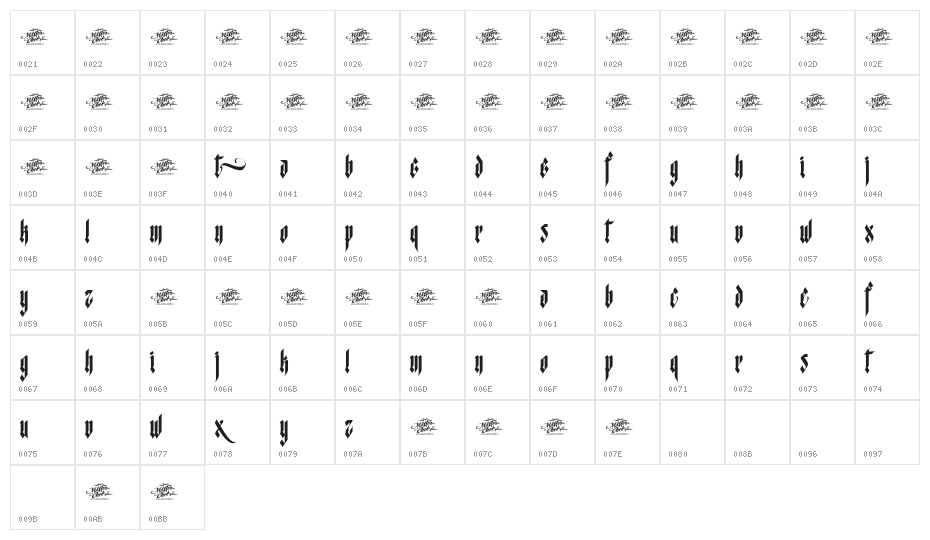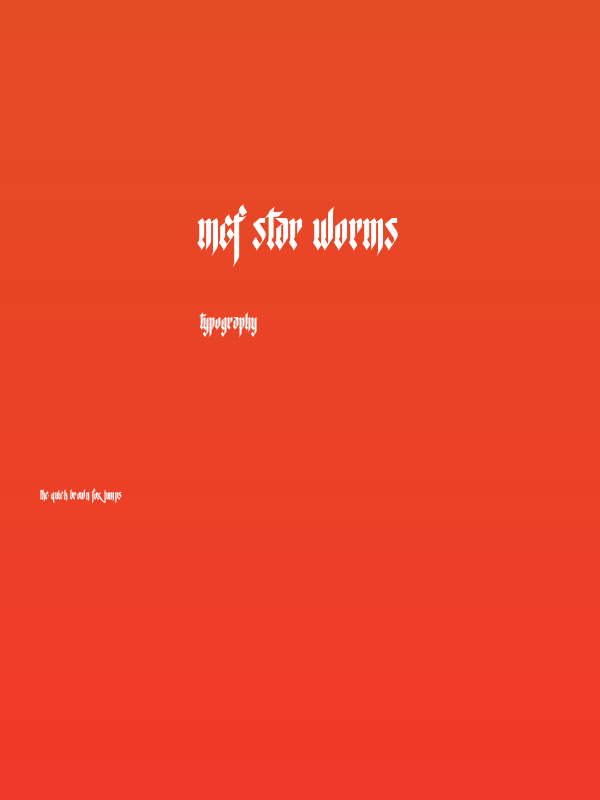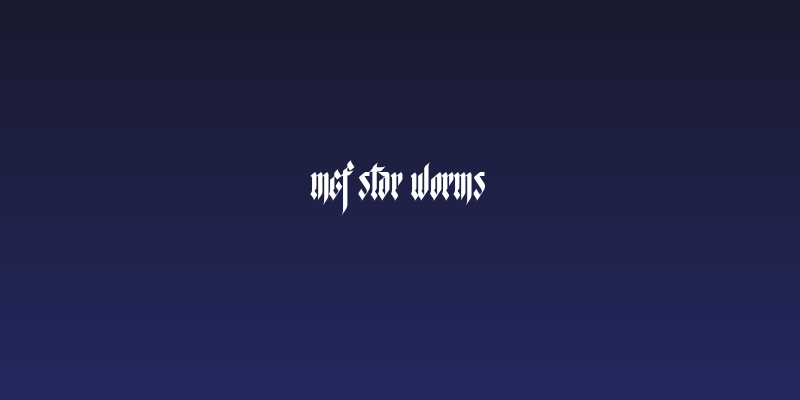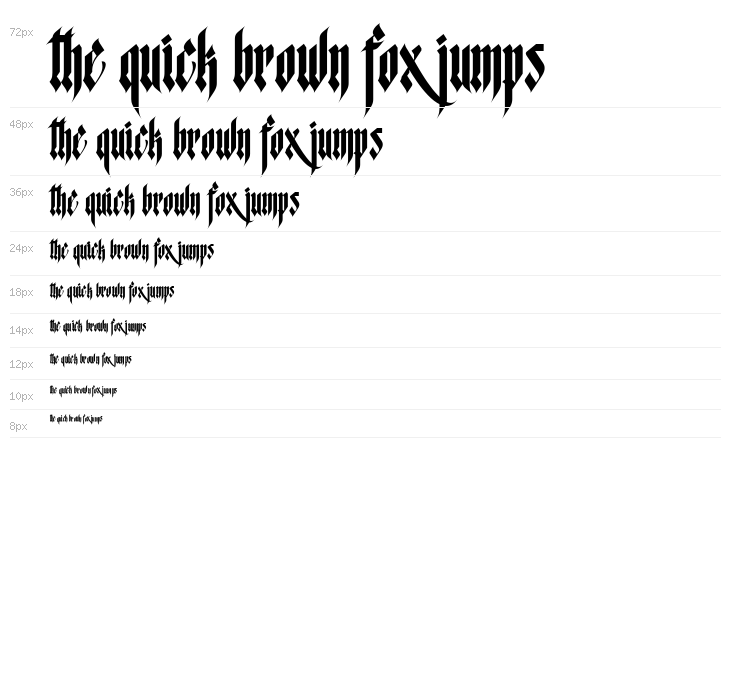
MCF Star Worms Font
MCF Star Worms Description
This font exhibits a striking and bold blackletter style, characterized by its sharp, angular lines and dramatic flourishes. The uppercase and lowercase letters maintain a consistent gothic aesthetic, with pointed serifs and intricate detailing that evoke a sense of historical elegance. The font's strong vertical emphasis and tight spacing create a compact and impactful appearance, ideal for making a statement. Its unique style is reminiscent of medieval script, offering a blend of tradition and artistry that stands out in any design.
| Proposed Projects | This font is perfect for projects that require a historical or gothic touch, such as book covers, posters, branding for vintage or artisanal products, and event invitations with a medieval theme. |